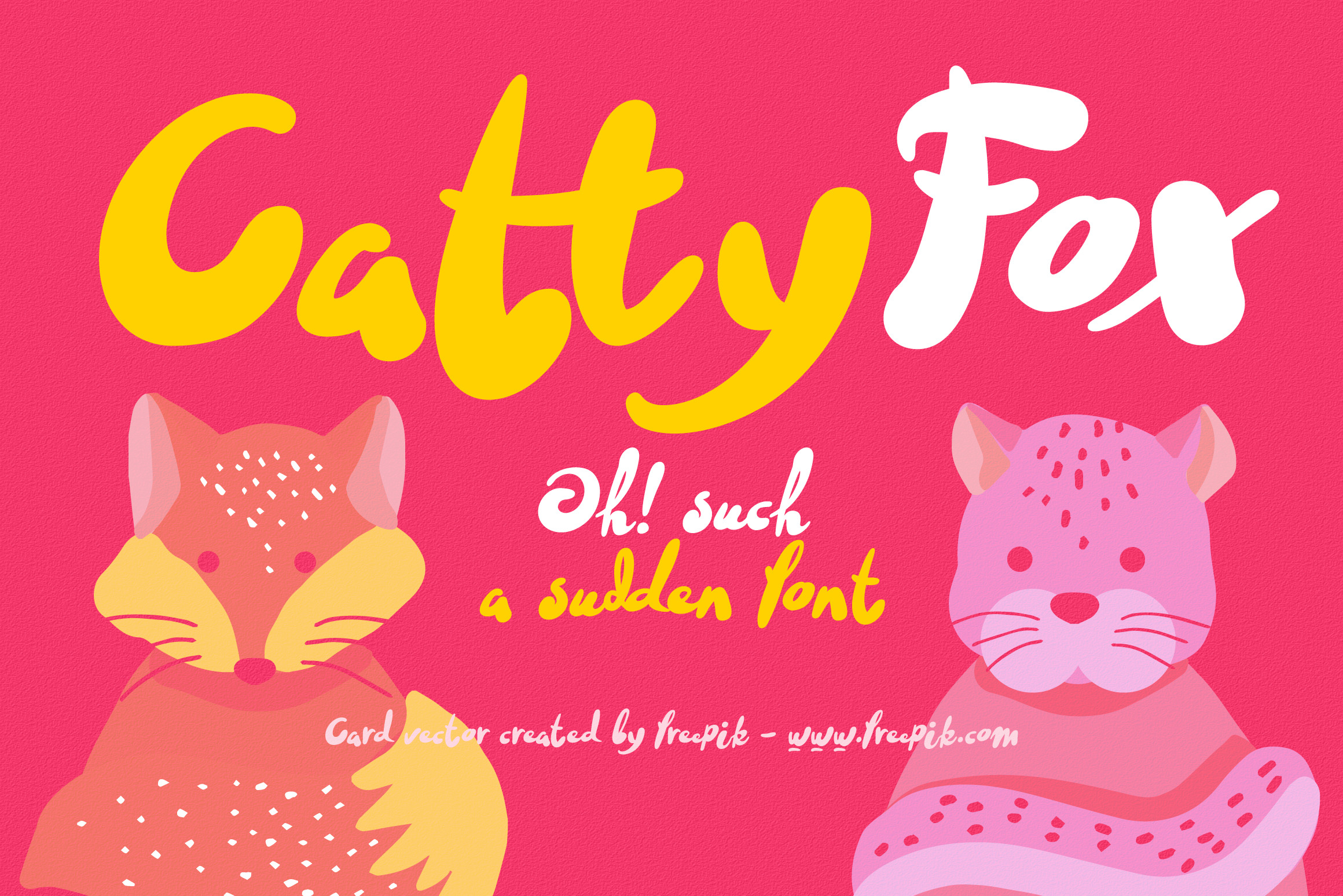
Catyyfox fresh & superfunny font
Everyone loves black, strict stylish and elegant shapes. We strive to be perfect. Right? But ... don't you think we have lost something? Maybe childish spontaneity? The Cattyfox font will take you back to those wonderful times when there was no need to be serious, when the whole world was not so serious. If you want to have some uncompromising fun, hover above the crowd to show everyone how free you are, just create something in Cattyfox font and you will understand what true freedom is.